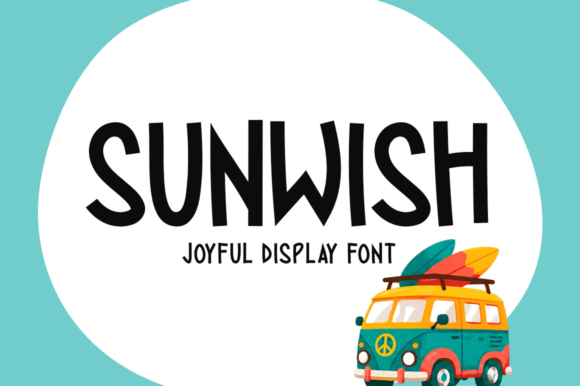
Sunwish: A Playful Display Font for Campaign Headlines
It was 3 p.m. on a Tuesday—two days before launching a summer-themed online course series—and I was tweaking the Instagram carousel for the teaser post. The first slide needed to stop scrollers mid-feed: bold, warm, unmistakably joyful. I swapped out the safe sans serif I’d been using and dropped in Sunwish. Instantly, the headline “Your Creative Summer Starts Here” felt lighter, brighter, more *inviting*. Not just readable—memorable.
What Sunwish Brings to Real Campaign Work
Sunwish is a display font built for moments like that: short, high-impact text where personality matters as much as clarity. Its tall x-height, exaggerated curves, and slightly uneven baseline give it a hand-drawn ease—but with consistent spacing and clean vector precision. It’s not cartoonish; it’s *confidently playful*. Think lemonade stands, beachside pop-ups, indie product drops, or wellness retreat announcements—not boardroom decks or legal disclaimers.
The charm isn’t just aesthetic. In fast-scrolling feeds, Sunwish creates instant visual hierarchy. On mobile previews, its open letterforms (like the airy ‘a’, ‘e’, and ‘o’) hold shape even at 48pt. And because it’s designed as a display typeface—not body text—it avoids the fatigue of dense reading. That’s intentional. You’re not setting paragraphs in Sunwish. You’re setting moods.
Where It Shines (and Where It Doesn’t)
In practice, Sunwish excels in:
It’s less effective—and here’s the honest part—for anything requiring sustained reading: email body copy, multi-line feature lists, or small-print disclaimers. It also doesn’t scale well below 32pt on dark mode previews or low-res screens, where subtle curves can soften into blobs. And while it conveys friendliness beautifully, it’s not suited for luxury skincare launches or fintech rebrands aiming for quiet authority.
Pairing It Right—No Guesswork Needed
I always pair Sunwish with a neutral, highly legible sans serif—something like Inter, Poppins, or Montserrat. Why? Because Sunwish sets the tone; the sans serif delivers the details. For example:
This pairing isn’t about contrast for contrast’s sake—it’s about assigning roles. Sunwish is your campaign’s smile. The supporting font is its clear, calm voice.
Practical Checks Before You Drop It In
Before using Sunwish across assets, I do three quick checks:
2. Style range: Does it include at least one weight (Regular is standard)? Bonus points if it offers alternates (like a swash ‘Q’ or dotted ‘i’) or basic ligatures—but don’t expect full language support. It’s optimized for English headlines, not multilingual UI.
3. Background contrast: Test it over both light and dark versions of your brand palette. Its rounded forms need breathing room—avoid placing it directly over busy photos unless you add a subtle semi-transparent overlay or stroke.
Also worth noting: Sunwish works best when treated as a *display font*, not a system font. Don’t try to build an entire brand identity around it alone. Use it for logos only if the brand is inherently lighthearted and text-based (e.g., a podcast name or workshop series). For packaging or editorial design, treat it as a seasonal accent—not a permanent foundation.
Real Workflow Tip: Start With the Thumbnail
Here’s what changed my process: I now design the YouTube thumbnail *first*, using Sunwish at actual thumbnail dimensions (1280×720). If it reads clearly there—with no squinting, no second glance—I know it’ll hold up everywhere else: Instagram Stories, Pinterest, email headers, even printed promo cards. If it falters, I adjust tracking or switch to a tighter alternate before moving to other formats. It’s a simple litmus test—and it saves hours of revision later.
Sunwish won’t fix weak messaging or poor composition. But in the right context—short, vivid, human-centered—it adds warmth, energy, and a distinct note of summer-inspired optimism. Not every campaign needs that. But when yours does, Sunwish doesn’t just fit. It lifts.